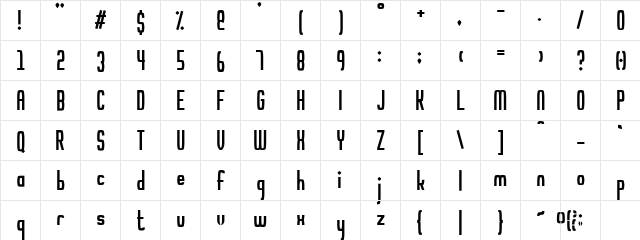
Noodletee Regular
Design Context for Noodletee Typeface
Noodletee takes a measured approach to typography — its balanced proportions and neutral character make it a reliable workhorse for both digital and print work.